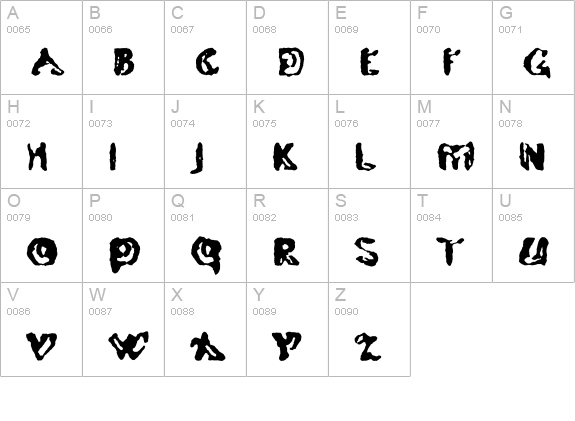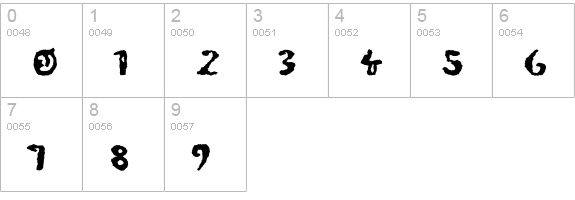
Littles Font Details
Introducing Littles font, a whimsical and playful typeface perfect for adding a touch of charm to your designs. This delightful font features a unique and handcrafted look that will bring a sense of joy to any project. Whether you're working on invitations, greeting cards, posters, or branding materials, Littles font is sure to make a statement. What's even better is that Littles font is available for free download at FontsMarket.com. Yes, you read that right - this lovely font is freely accessible for you to use in both personal and commercial projects. So why wait? Add a dash of creativity and fun to your designs with Littles font today!